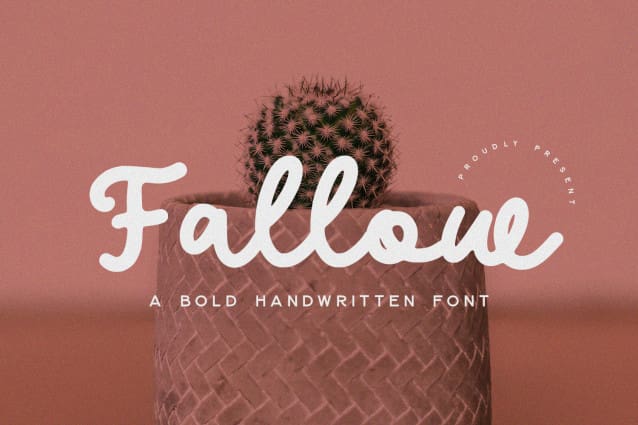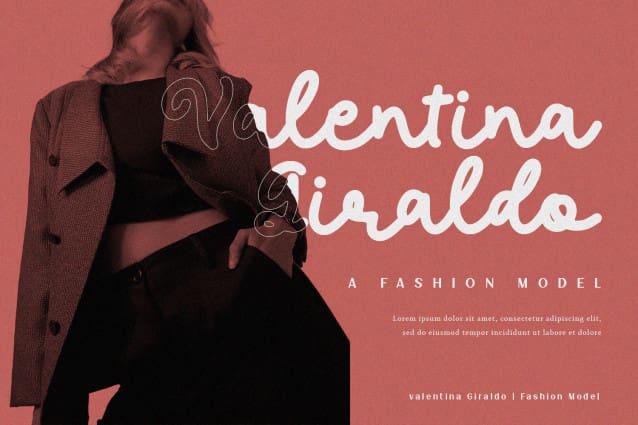
Fallow Script Font
Fallow Script Font is a script font with elegant and modern feels. It will be perfectly used for Branding, Logo Design, Lettering, Logotype, Clothing, Poster, magazine, packaging, posters, shopping bags, t-shirts, book covers, photography, special events and other design project.